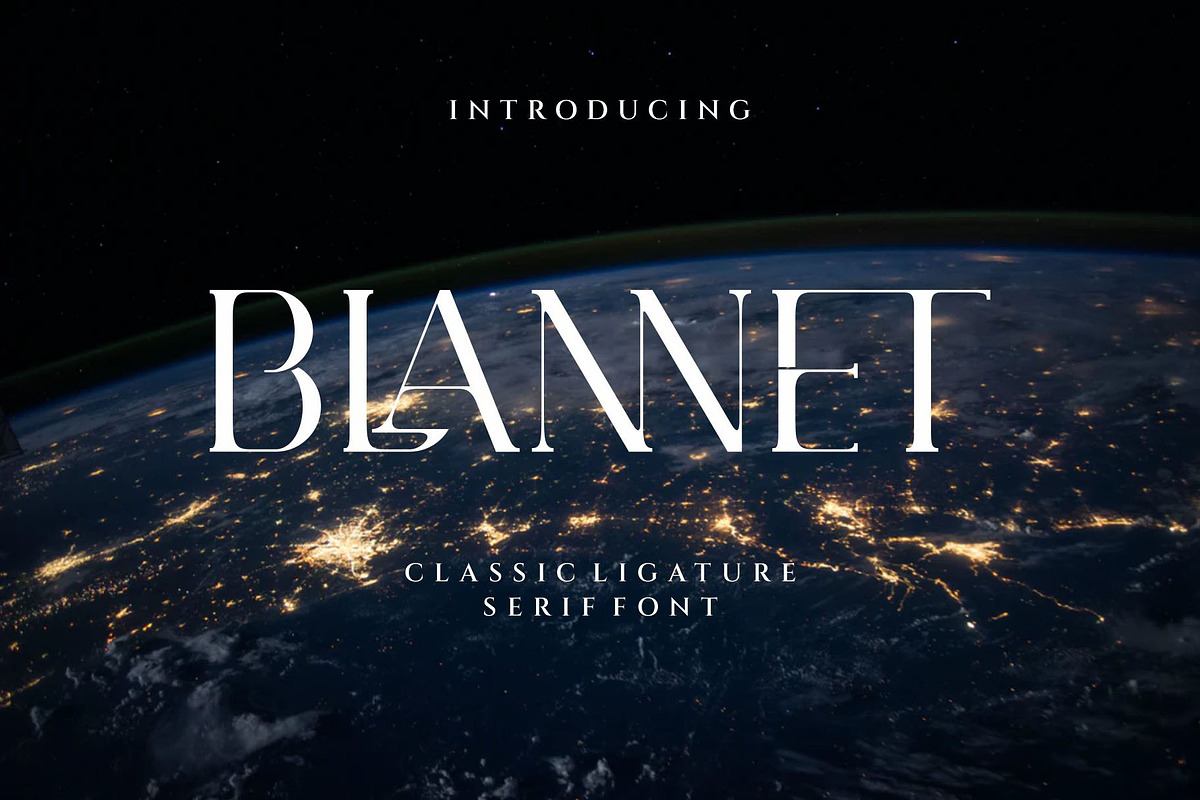
BLANNET Ligature Serif Typeface Free Download
Please note, to use this font for commercial purposes, you must purchase the full version. BLANNET is a modern and sophisticated ligature serif typeface designed to bring elegance and style to your designs. With its intricate ligatures and classic serif letterforms, this font is perfect for high-end branding, editorial projects, logos, and more. Whether you're working on a luxury brand identity or a creative magazine layout, BLANNET adds a refined, timeless touch to your work. Test it out and enjoy free download access for personal use. Experience the beauty and uniqueness of BLANNET Ligature Serif Typeface Free Download before purchasing the commercial license. Elevate your designs with the sophisticated style of BLANNET.